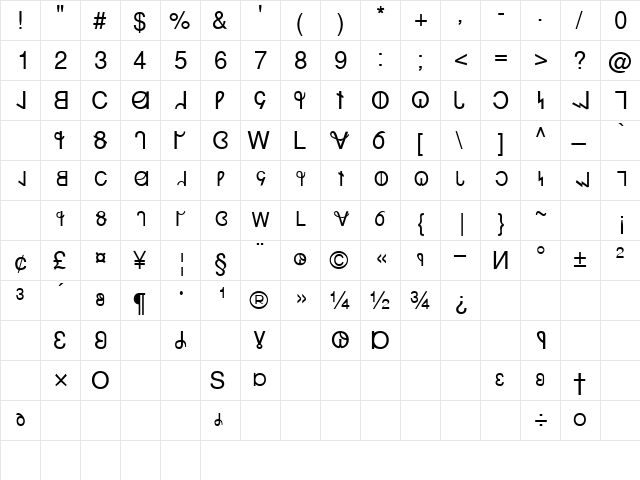
LevantSCapsSSK Regular
Design Context for LevantSCapsSSK Typeface
LevantSCapsSSK offers clean, dependable letterforms without strong stylistic allegiance, making it a practical choice for designers who need flexibility.